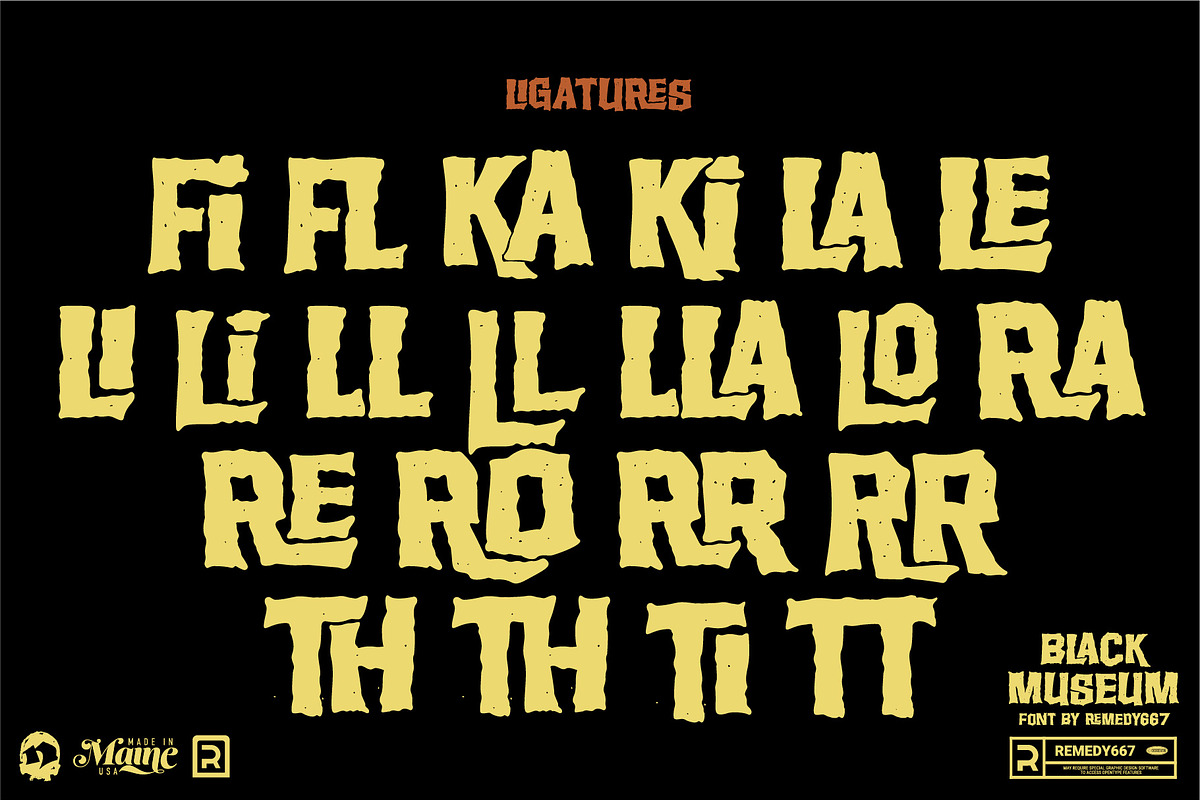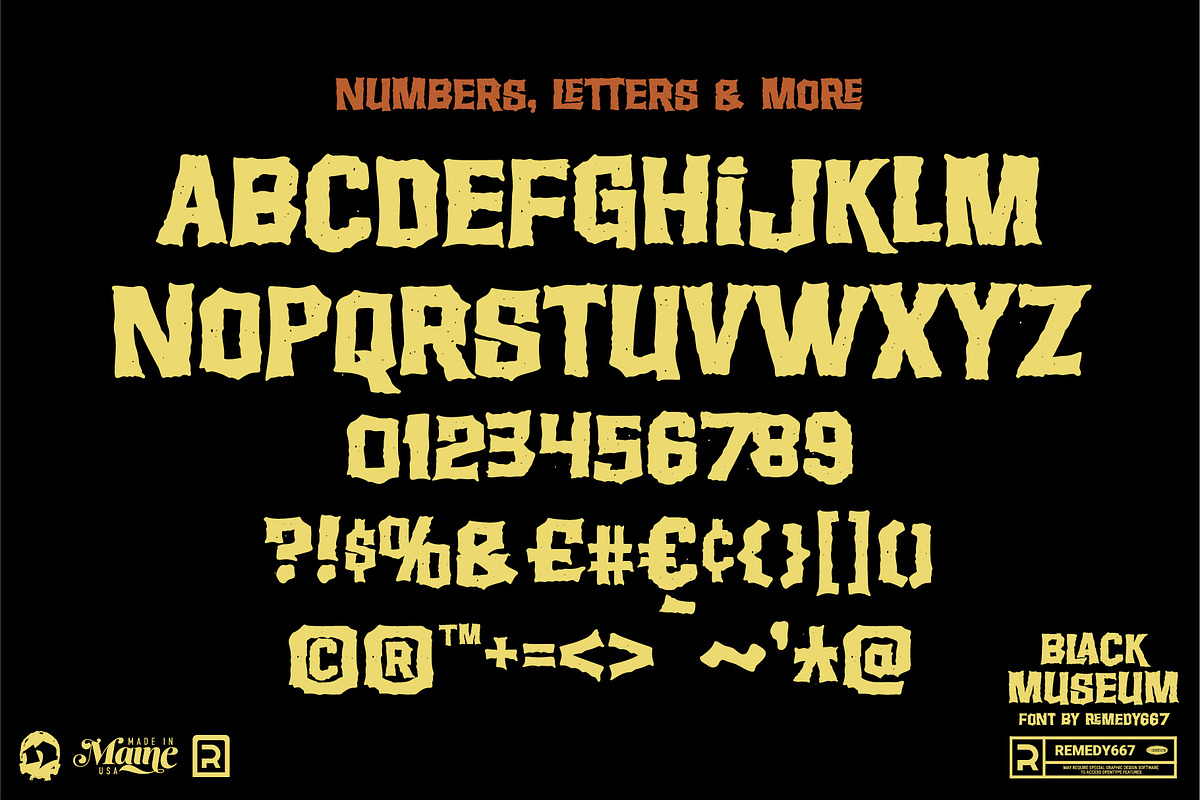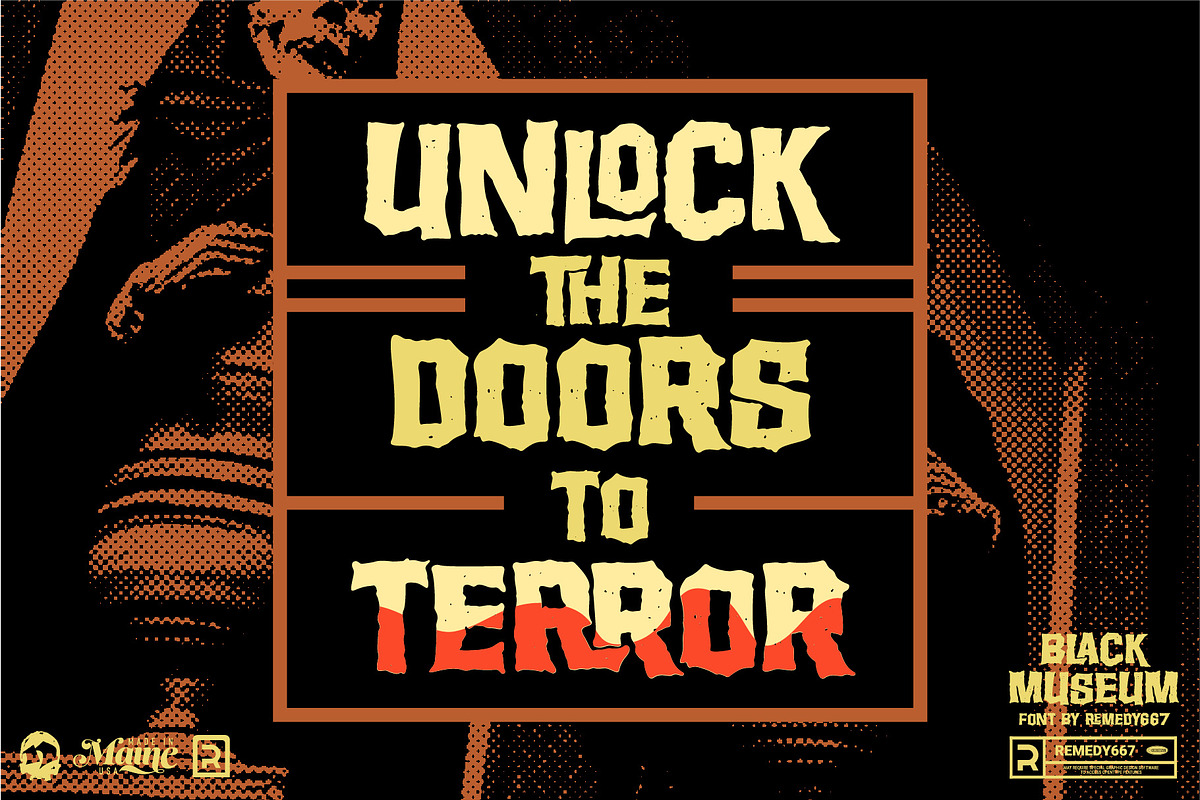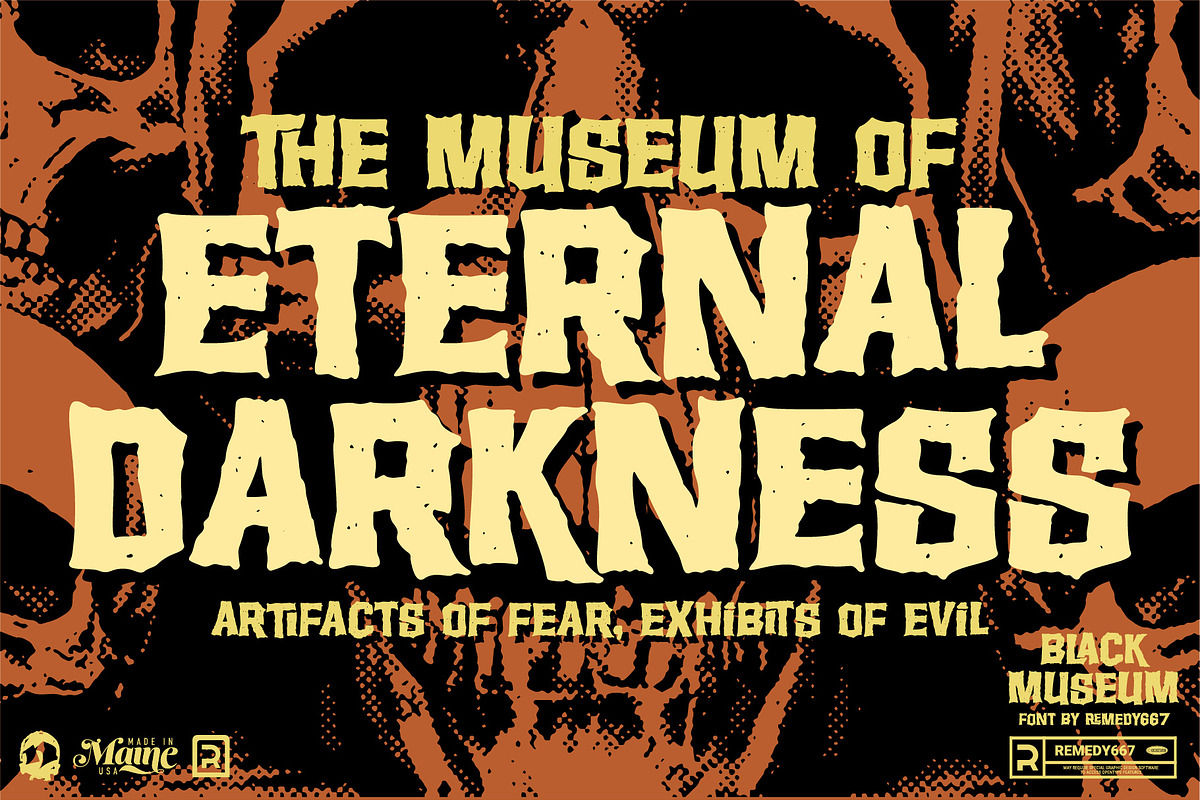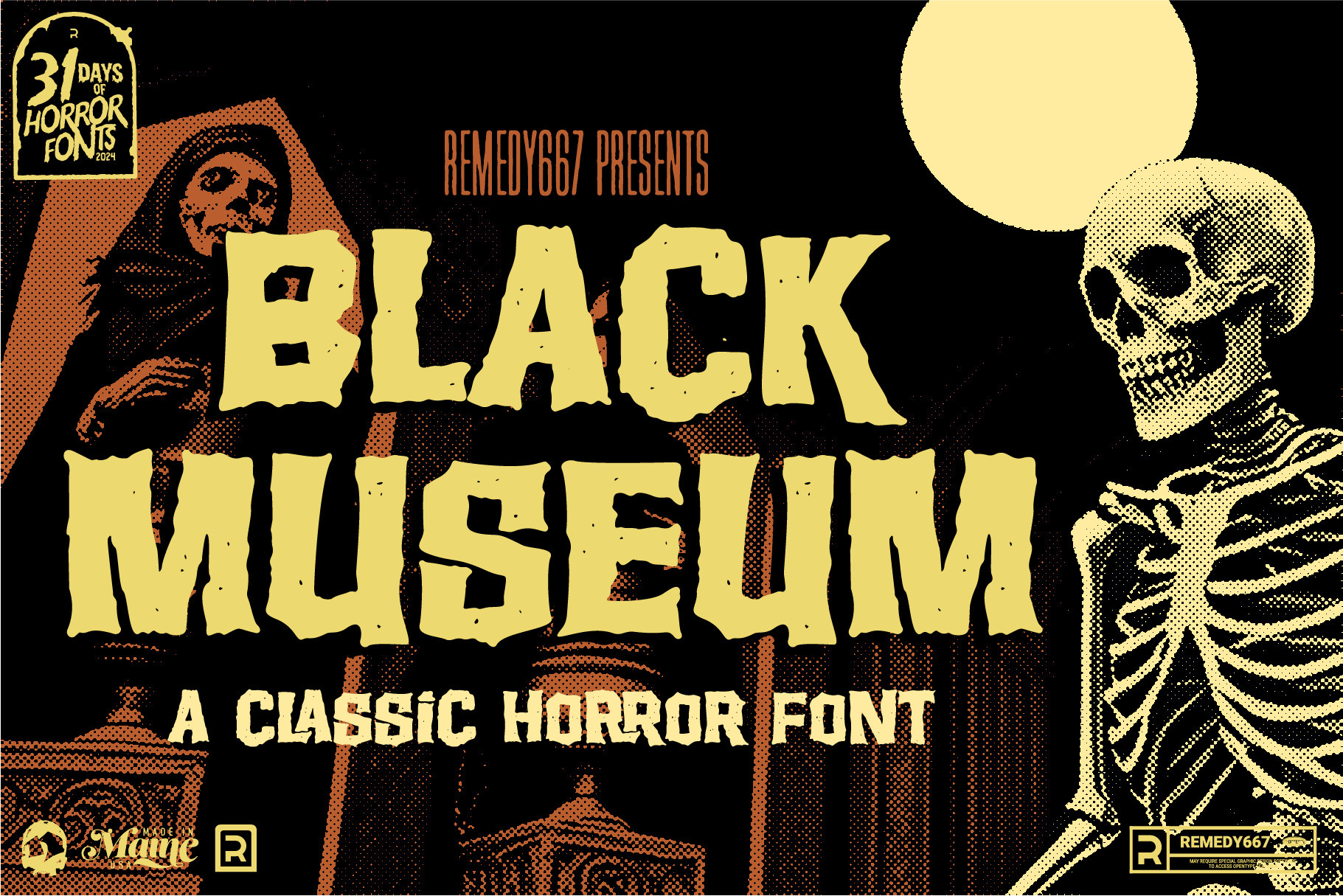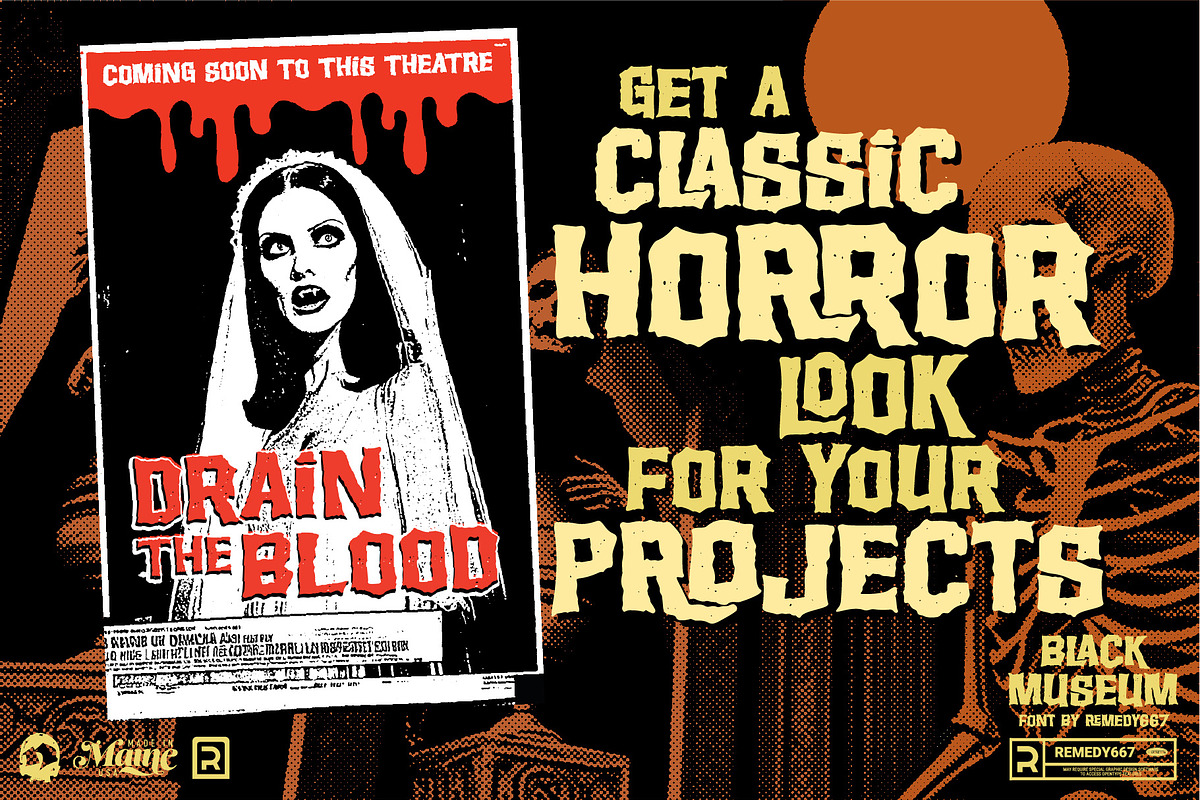
Black Museum - Retro Horror Font
Immerse your designs in the chilling allure of Black Museum, where the haunting elegance of classic 1970s horror film posters comes to life. Its classic, cryptic lettering captures the essence of vintage fear, making it a must-have for any horror enthusiast. Whether you’re crafting movie posters, eye-catching logos, or eerie apparel, this typeface transforms your projects into captivating visuals that evoke nostalgia and intrigue. Elevate your classic horror vibes with Black Museum—your ticket to a world where every letter tells a story of suspense.
Black Museum transforms your designs into haunting masterpieces that resonate with vintage fear. Don’t just create—disturb and delight with every word!
- Ligatures give your lettering more versatility
- Give your designs a classic horror look